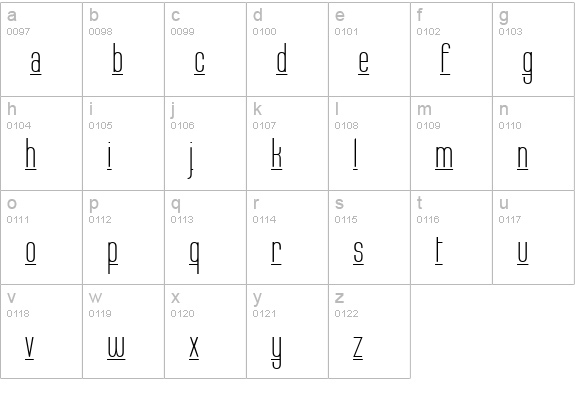
Introducing Labtop Underline font - a sleek and modern typeface perfect for adding a touch of sophistication to your design projects. With its clean lines and elegant curves, Labtop Underline exudes a sense of professionalism and refinement. This versatile font is ideal for a wide range of applications, from logos and branding to web design and print materials. The best part? Labtop Underline is available for free download at FontsMarket.com! Simply head over to the website to get your hands on this stylish font and start using it in your projects today. Don't miss out on the opportunity to enhance your designs with the timeless appeal of Labtop Underline font.